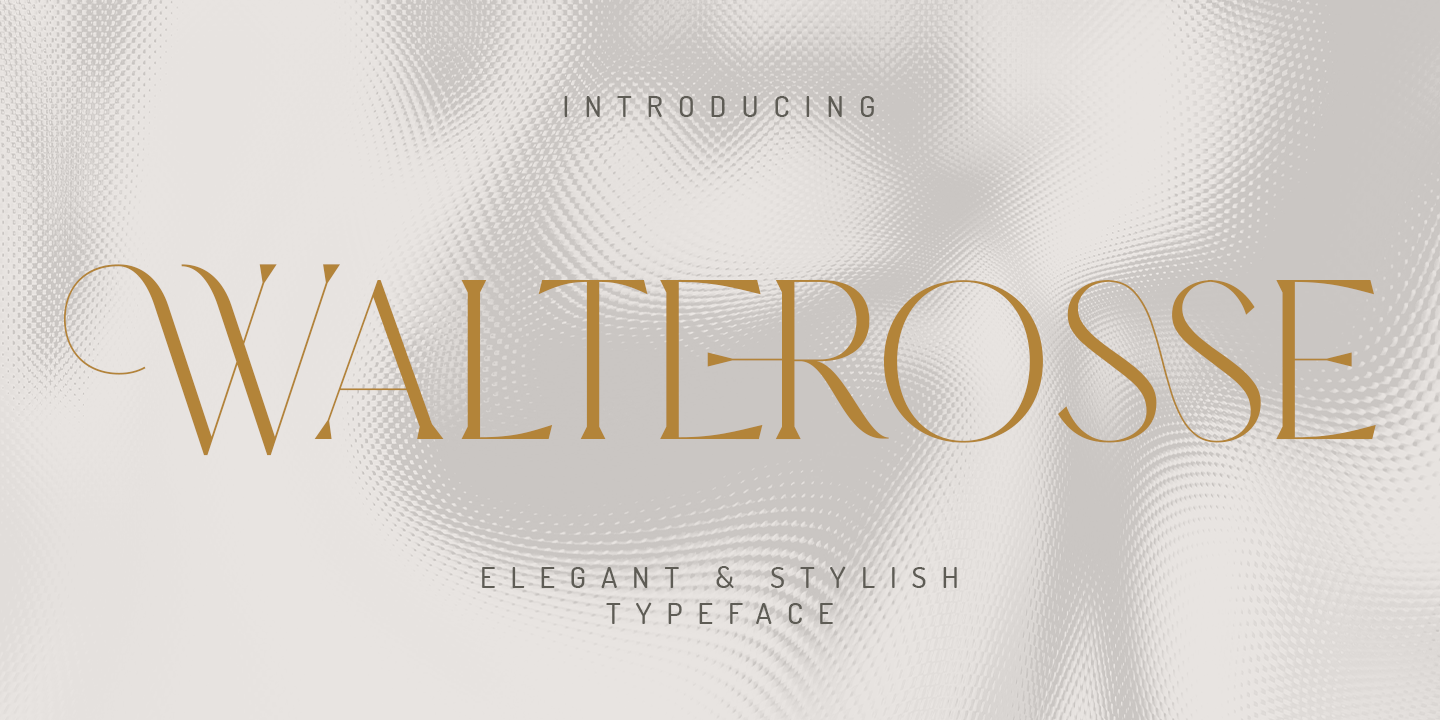
Walterosse Font is perfect for luxury branding, high-end fashion magazines, premium product packaging, elegant wedding invitations, sophisticated corporate identities, upscale restaurant menus, and exclusive event materials. Its refined appearance makes it ideal for jewelry brands, luxury hotels, premium cosmetics, art galleries, and prestigious business communications.
Walterosse Font is exciting because it embodies timeless elegance with contemporary sophistication that captivates audiences instantly. This extraordinary typeface combines classical proportions with modern refinement, creating a distinctive visual language that speaks to luxury and exclusivity. The font's graceful curves and balanced letterforms make it perfect for brands seeking to convey prestige, quality, and refined taste.
The Walterosse Font family includes multiple distinguished variations: Regular, Light, Medium, Bold, and Italic versions. Each style maintains the font's signature elegant character while offering different levels of visual impact. The family also features decorative alternates, stylistic ligatures, and ornamental elements that provide designers with comprehensive tools for creating truly luxurious typography.
Walterosse Font Free Download represents a masterpiece in premium typography design. This exceptional typeface has been meticulously crafted to meet the demanding standards of luxury market communications while maintaining perfect readability. Whether you're developing high-end brand identities, creating exclusive marketing materials, or designing prestigious publications, this font delivers unmatched sophistication and class.
The aristocratic inspiration behind Walterosse Font makes it particularly suitable for luxury goods companies, premium service providers, and exclusive lifestyle brands. Its distinguished yet approachable personality allows it to communicate excellence and refinement while maintaining broad appeal. The font's prestigious character supports projects that require both visual impact and credible luxury positioning.
Professional designers appreciate Walterosse Font for its versatility and timeless appeal. The font performs exceptionally well in both display and text applications, making it an essential tool for luxury brand development. Its elegant letterforms support multiple languages and include extensive character sets for international luxury markets.
The sophisticated nature of Walterosse Font makes it an ideal choice for establishing premium brand positioning. Its distinctive elegant personality enhances luxury communications while creating aspirational connections with discerning audiences who appreciate quality, craftsmanship, and exclusivity in their visual experiences.